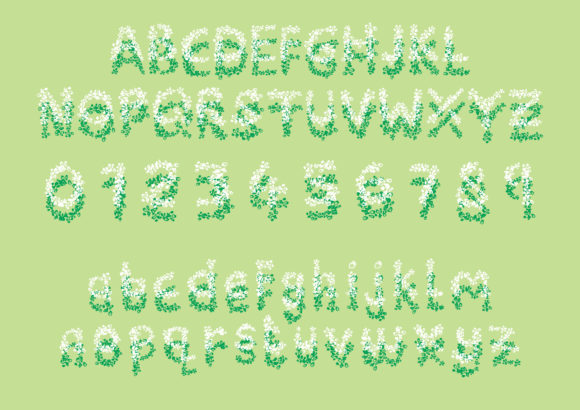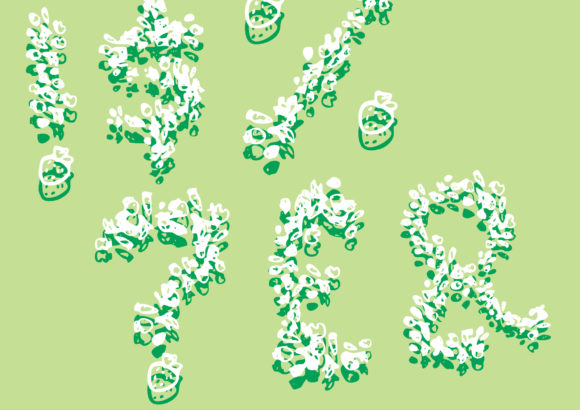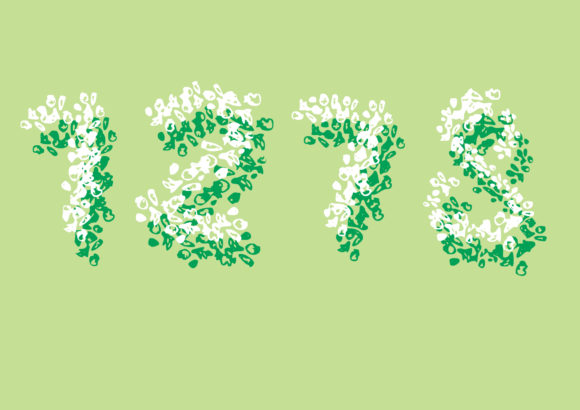
Introducing Five a Day Font: The Perfect Blend of Friendliness and Quirkiness
Are you on the hunt for a font that can add a touch of warmth and personality to your designs? Look no further than Five a Day Font, a sweet display font that’s friendly, quirky, and perfect for a wide range of creative projects. In this article, we’ll dive into the world of Five a Day Font, exploring its unique features, uses, and benefits for designers and crafters alike.
What is Five a Day Font?
Five a Day Font is a display font designed to make a statement. With its rounded edges, playful curves, and charming imperfections, this font is sure to capture the attention of your audience. Its friendly and approachable vibe makes it an excellent choice for logos, branding, social media graphics, and crafty DIY projects. Whether you’re a seasoned designer or a DIY enthusiast, Five a Day Font is an excellent addition to your font library.
Unique Features of Five a Day Font
So, what sets Five a Day Font apart from other fonts out there? Here are a few of its unique features:
- Rounded edges: Five a Day Font features rounded edges that give it a soft, approachable feel. This makes it perfect for designs that require a friendly and inviting tone.
- Playful curves: The font’s playful curves add a touch of whimsy and fun to your designs. This is ideal for crafty DIY projects, social media graphics, and branding materials that require a bit of personality.
- Charming imperfections: Five a Day Font has a few charming imperfections that make it feel more human and less like a traditional font. This adds to its quirky charm and makes it perfect for designs that require a bit of character.
Uses for Five a Day Font
Five a Day Font is an incredibly versatile font that can be used in a wide range of creative projects. Here are a few ideas to get you started:
- Logos and branding: Use Five a Day Font to create a logo or brand identity that’s friendly, approachable, and memorable.
- Social media graphics: Add a touch of personality to your social media graphics with Five a Day Font. It’s perfect for creating engaging and shareable content.
- Crafty DIY projects: Five a Day Font is a great choice for crafty DIY projects like scrapbooking, card making, and other paper crafts.
- Signage and displays: Use Five a Day Font to create eye-catching signage and displays that are sure to grab attention.
So, what are the benefits of using Five a Day Font for designers and crafters? Here are a few:
- Ease of use: Five a Day Font is incredibly easy to use, even for those who are new to design or crafting.
- Flexibility: This font is highly versatile and can be used in a wide range of creative projects.
- Unique look: Five a Day Font has a unique look that’s sure to make your designs stand out from the crowd.
- Time-saving: With Five a Day Font, you can create professional-looking designs in no time, saving you time and effort.
Tips for Using Five a Day Font
Here are a few tips for getting the most out of Five a Day Font:
- Experiment with sizes: Five a Day Font looks great in a variety of sizes, so don’t be afraid to experiment and find the perfect size for your design.
- Pair with other fonts: Five a Day Font pairs well with a range of other fonts, so try combining it with other fonts to create a unique look.
- Use it sparingly: While Five a Day Font is a beautiful font, it can be overwhelming if used too much. Use it sparingly to create a focal point in your design.
Five a Day Font is a sweet display font that’s friendly, quirky, and perfect for a wide range of creative projects. With its unique features, versatility, and ease of use, it’s an excellent addition to any designer’s or crafter’s font library. Whether you’re creating logos, social media graphics, or crafty DIY projects, Five a Day Font is sure to bring a touch of warmth and personality to your designs.